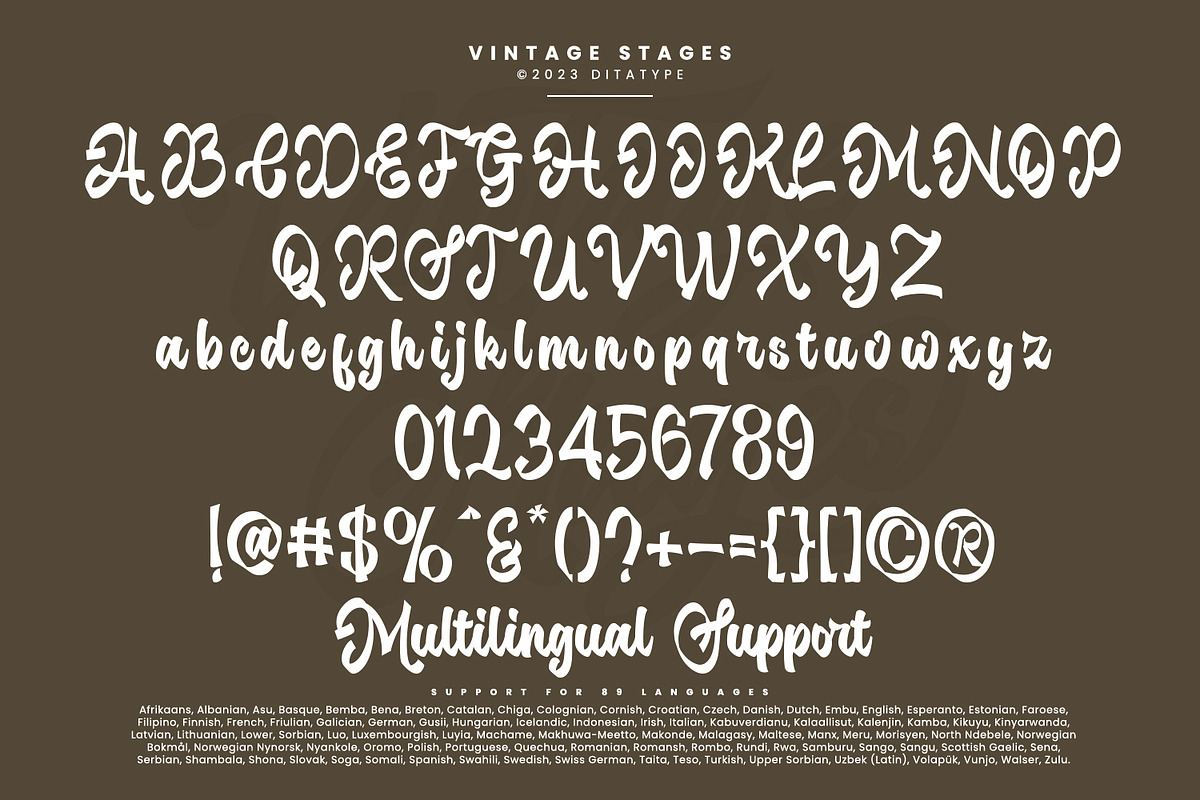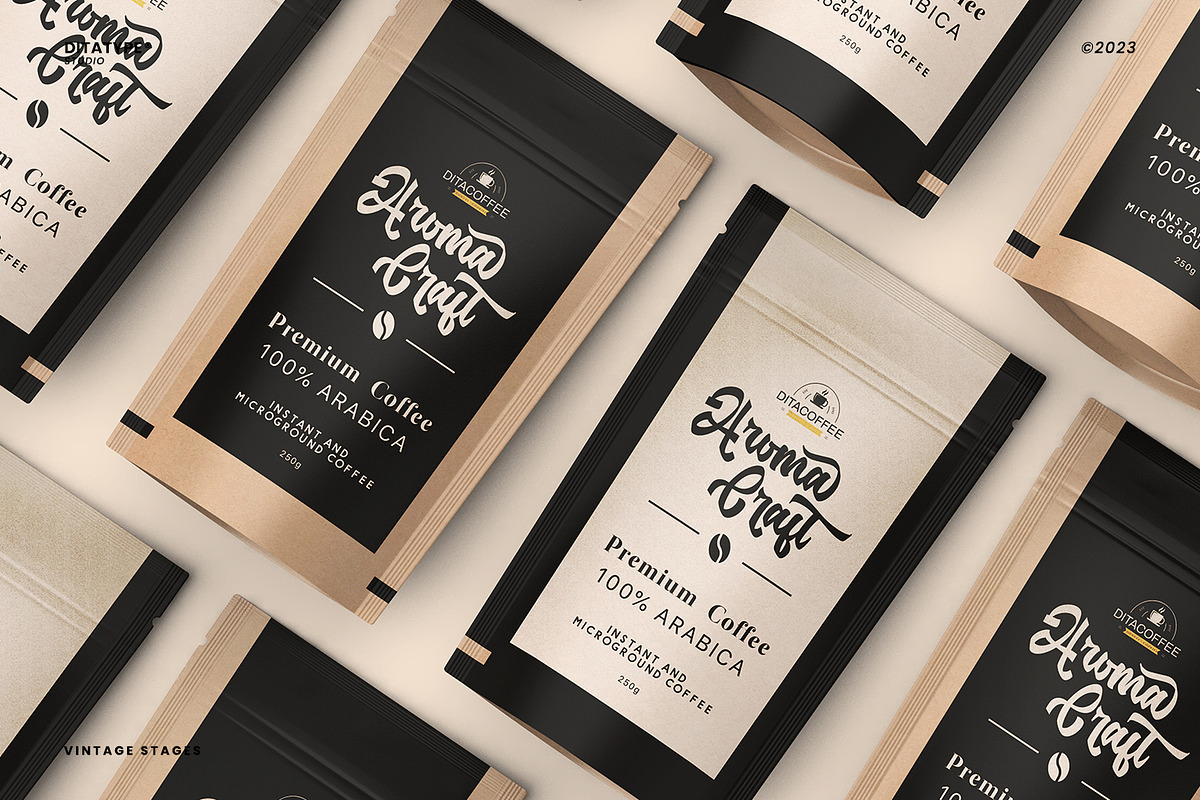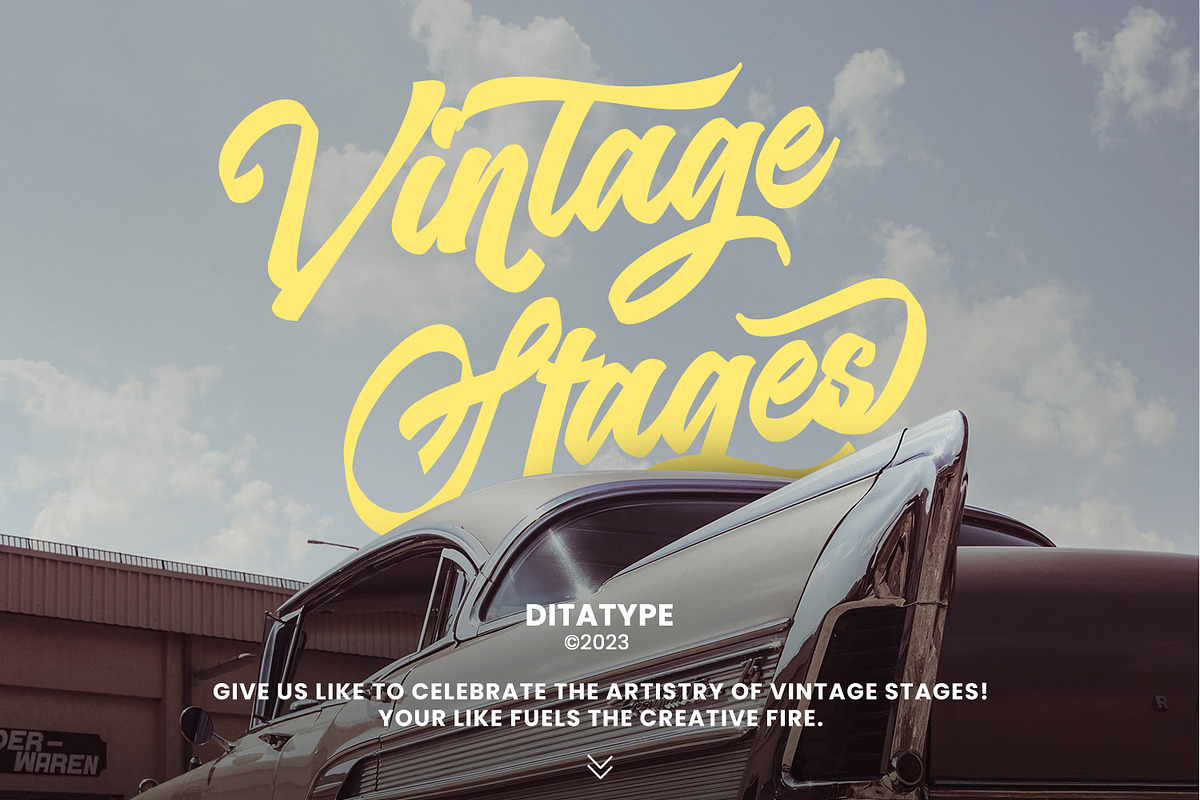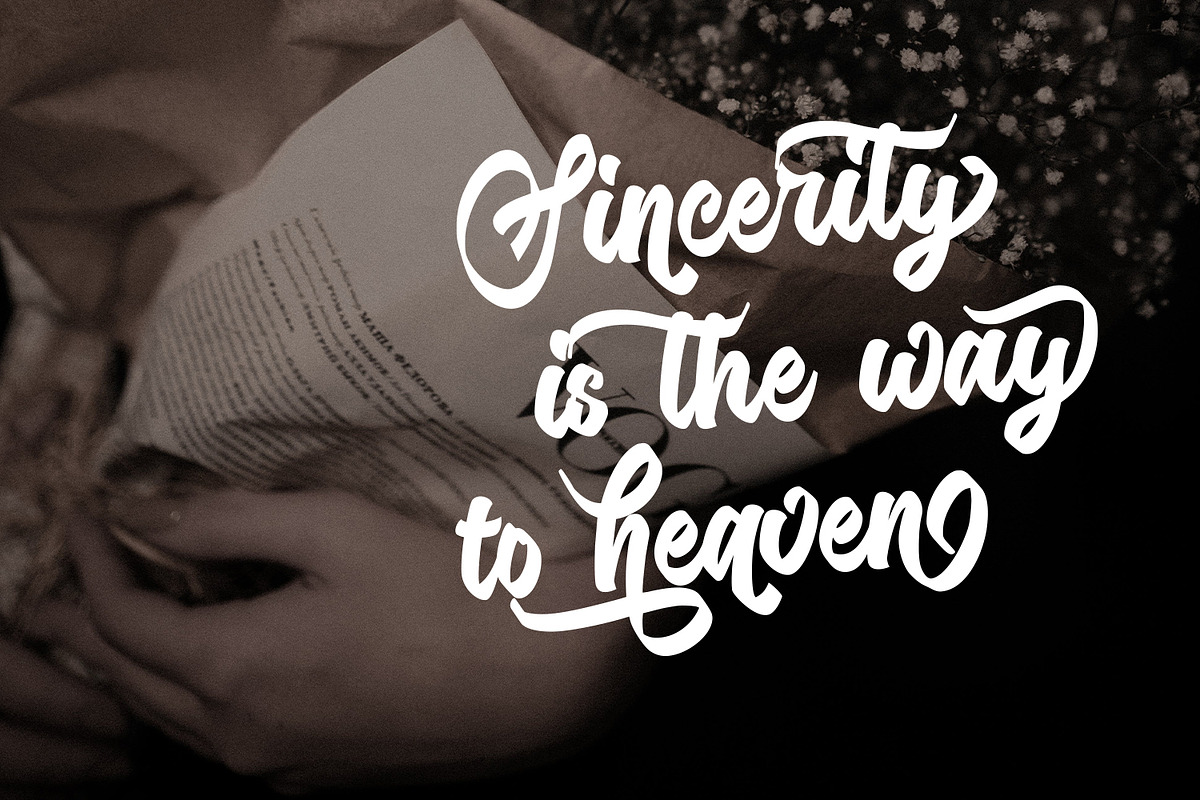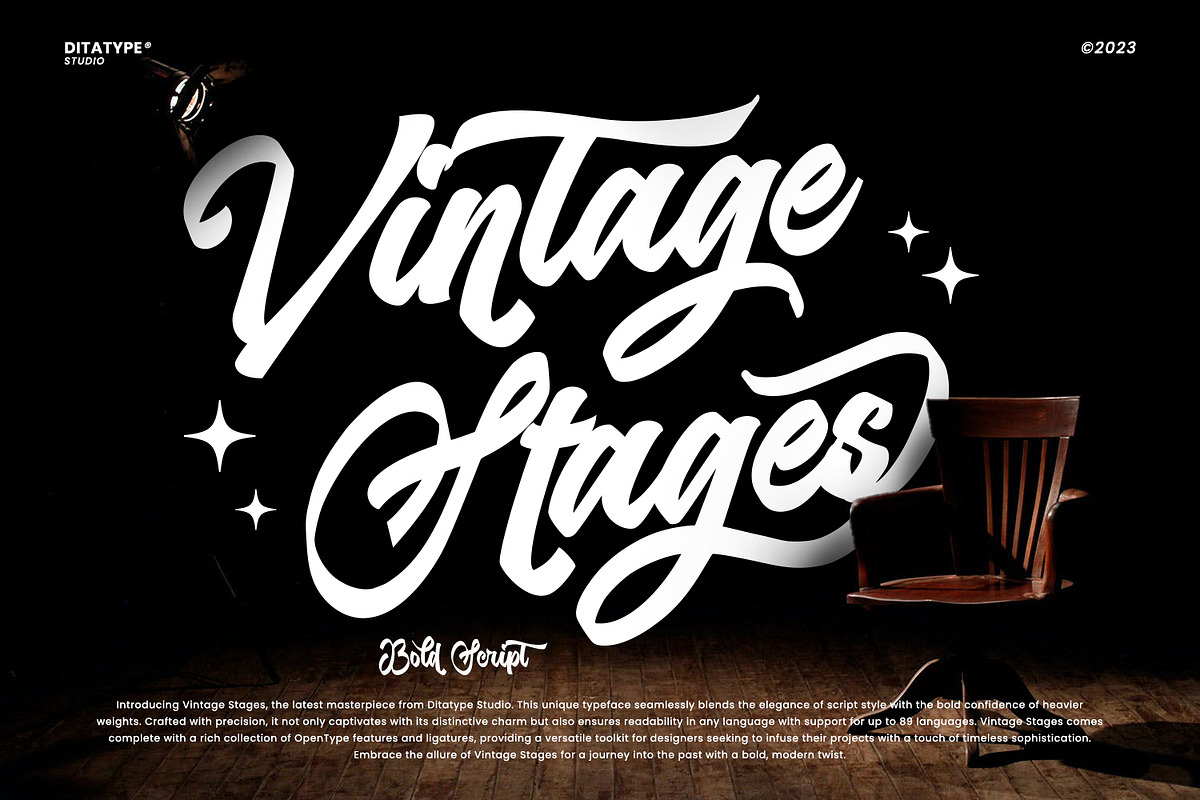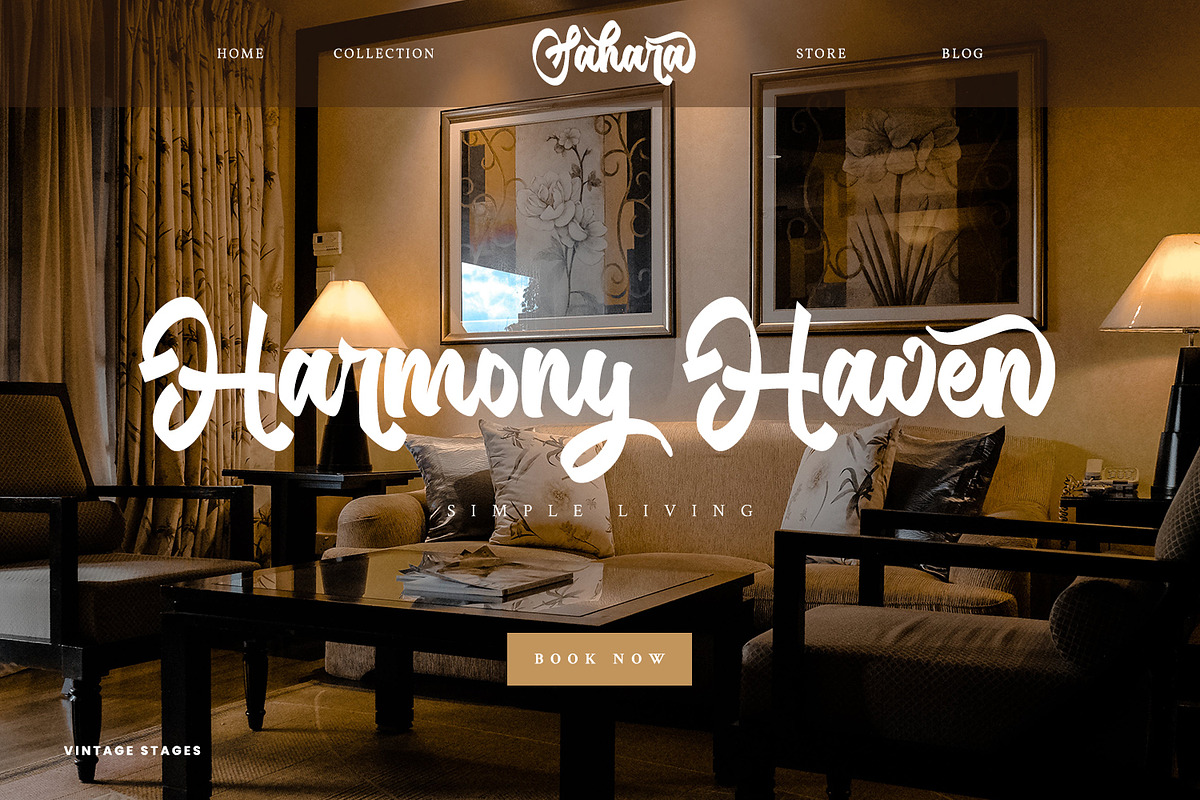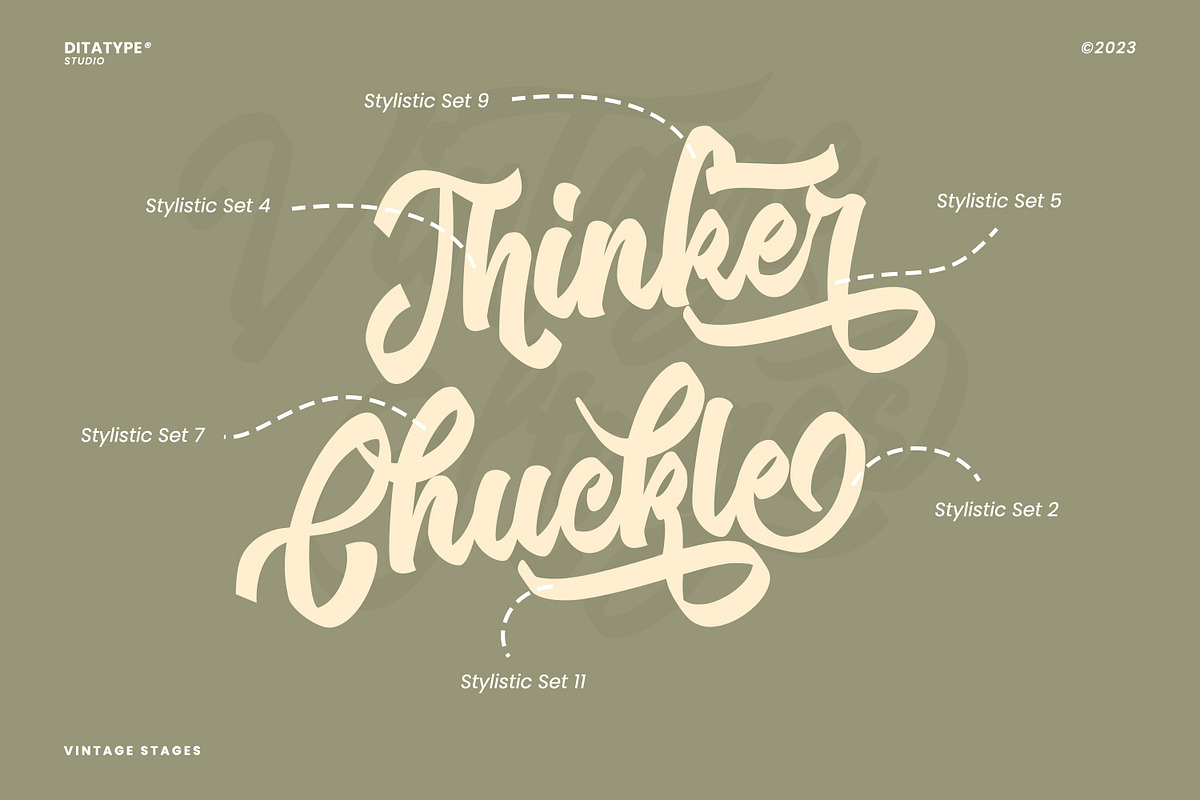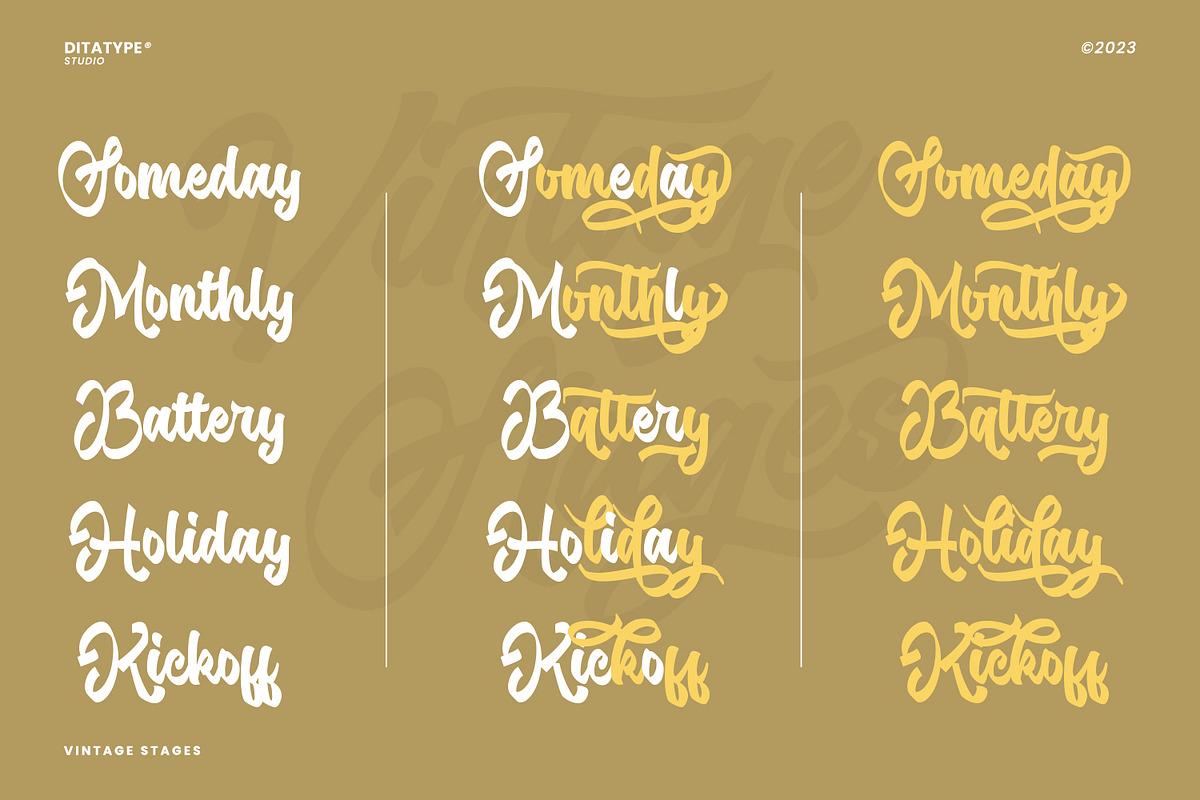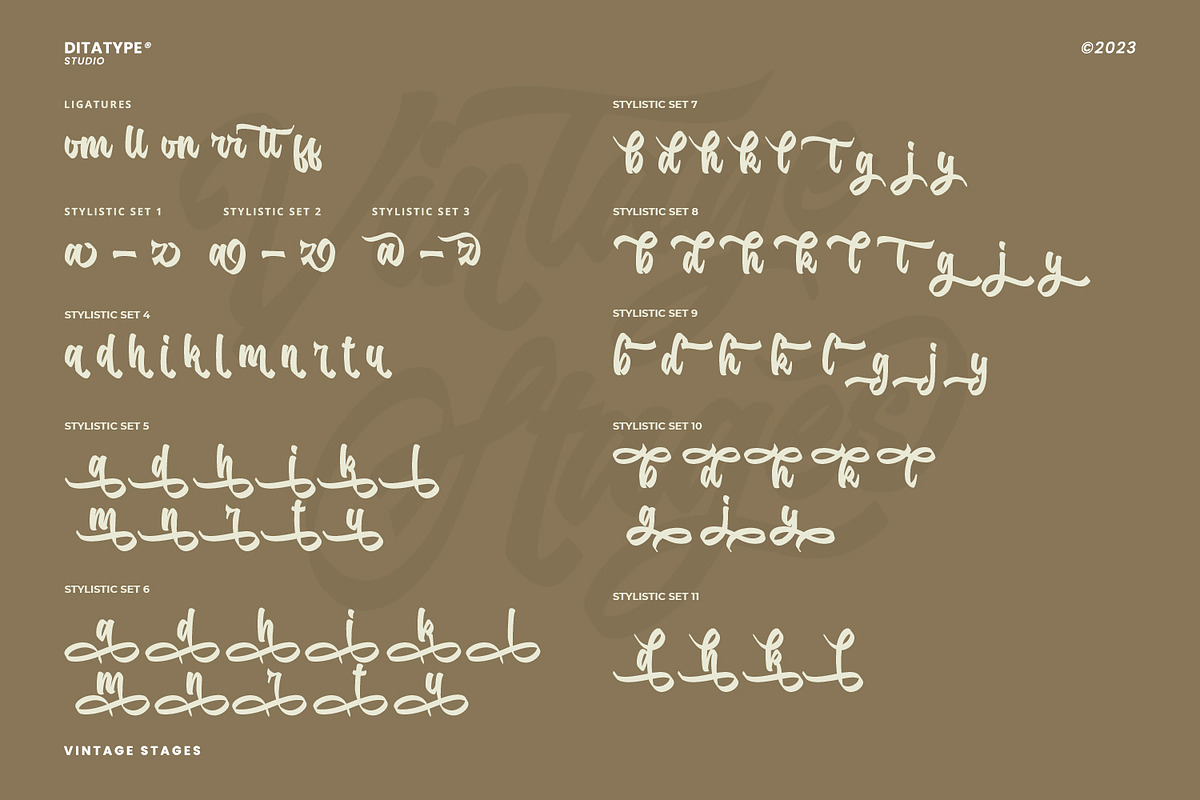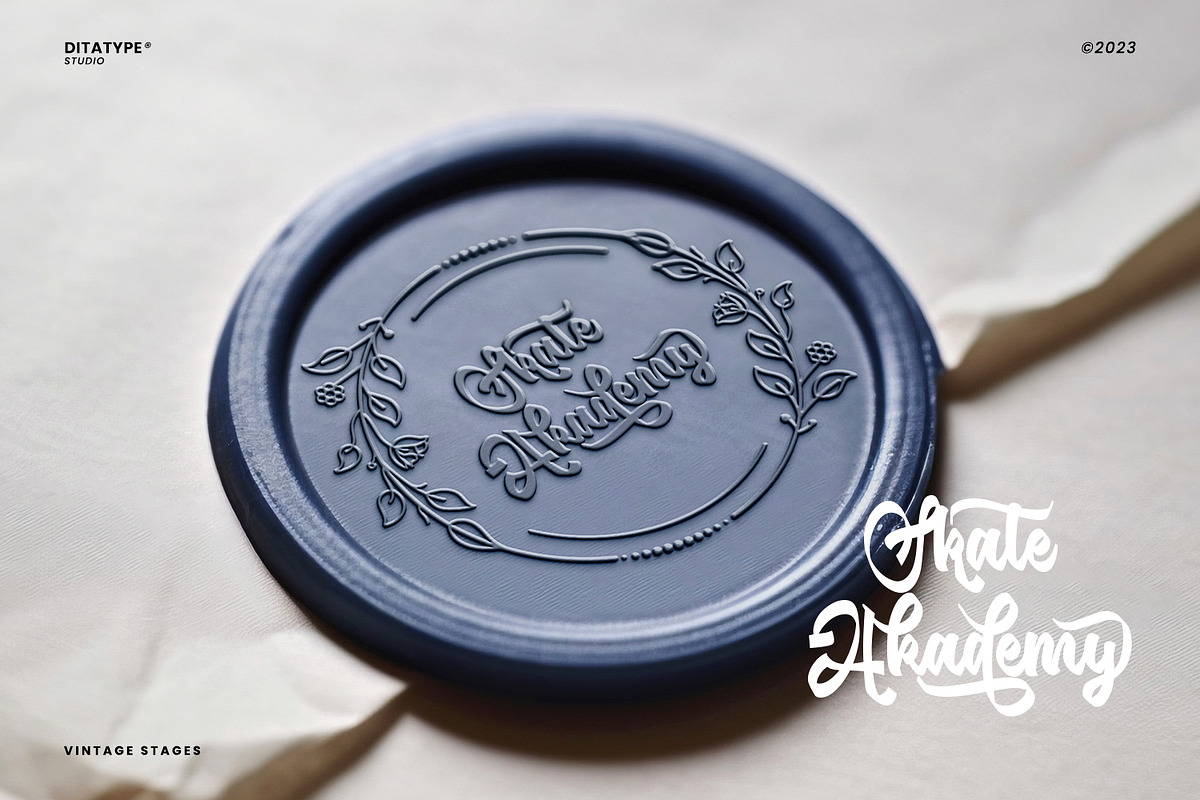
Vintage Stages
Vintage Stages is a gracefully designed script font that captures the essence of classic calligraphy with a modern twist. Crafted with a weight that is delicately balanced—not too thick nor too thin—this font offers a subtle elegance and a versatile appearance.
The consistent sizing ensures that the font maintains a rhythmic flow, resembling traditional handwriting, but with the clarity and readability required in contemporary design. The relatively low contrast of the strokes further enhances the font’s legibility while maintaining a soft and approachable feel. One of the most captivating characteristics of Vintage Stage is the inclusion of swinging ends on select letters. In addition, enjoy the features here.
- Stylistic Sets
Vintage Stages fits in headlines, logos, posters, flyers, branding materials, greeting cards, print media, editorial layouts, and many more designs. Find out more ways to use this font by taking a look at the font preview.